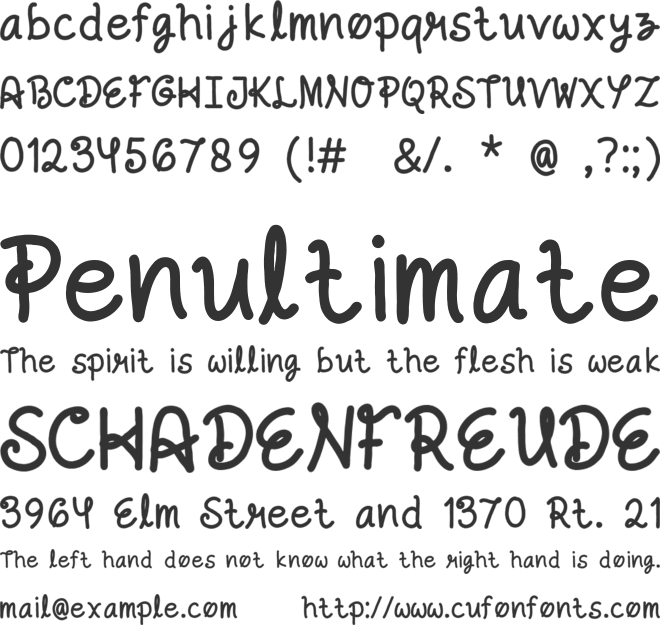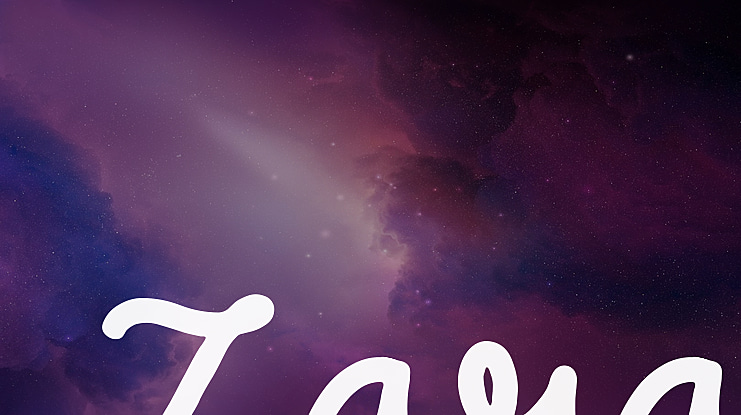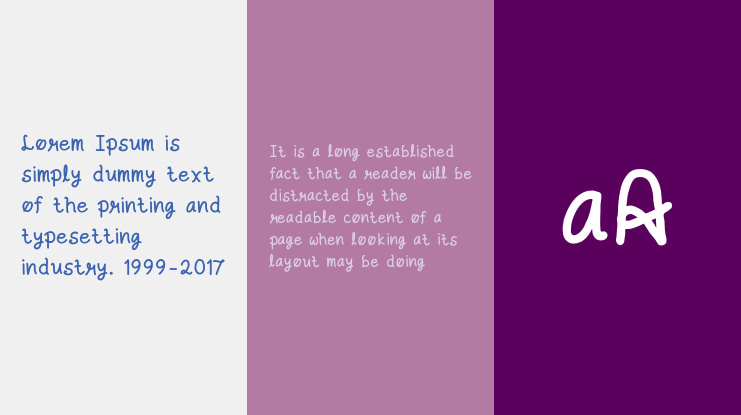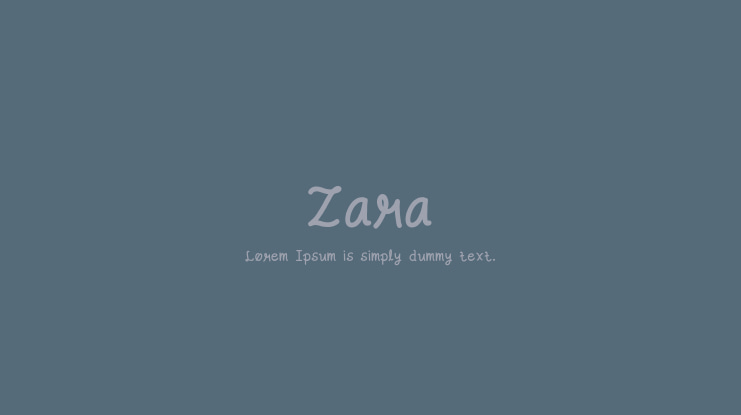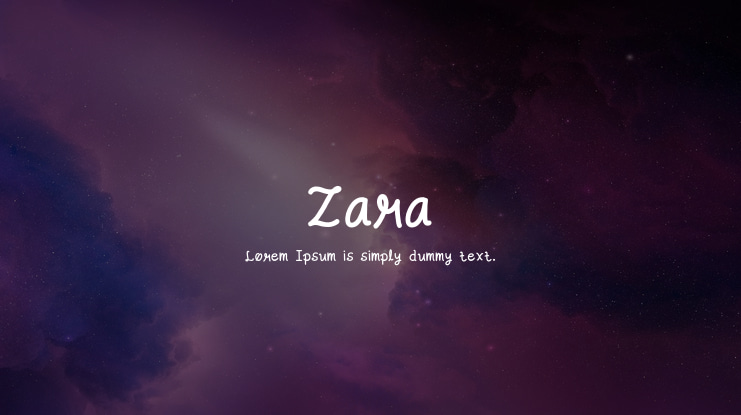
Zara Font
Masyafi studio
Zara is a cute and joyful handwritten font. Fall in love with its incredibly versatile style and use it to create gorgeous wedding invitations, beautiful stationary art, eye-catching social media posts, and much more!